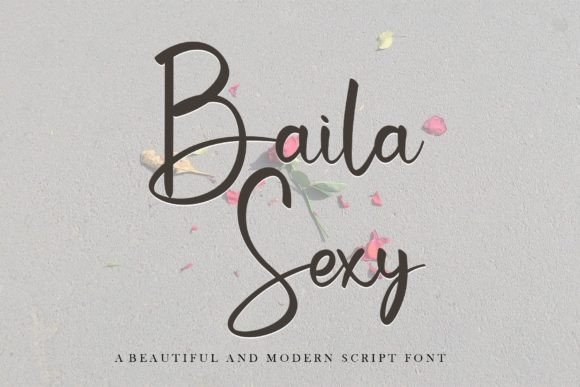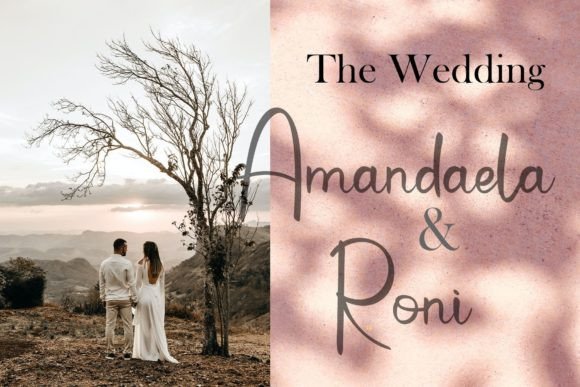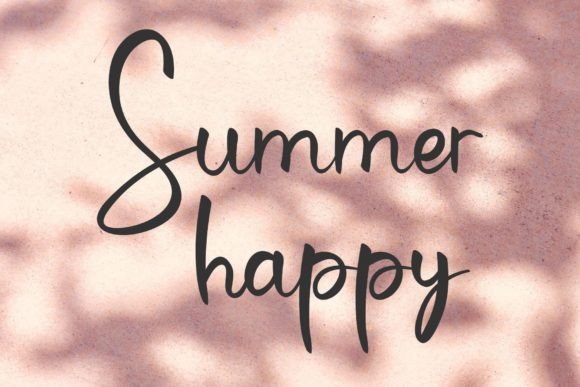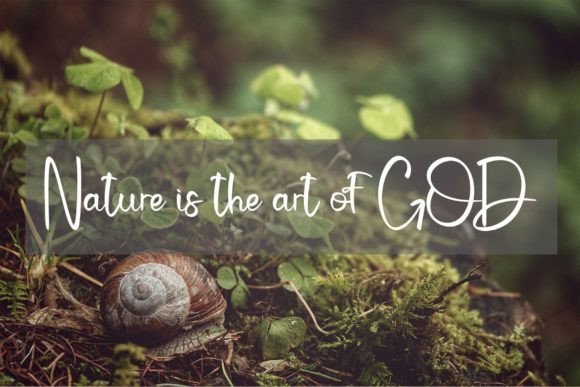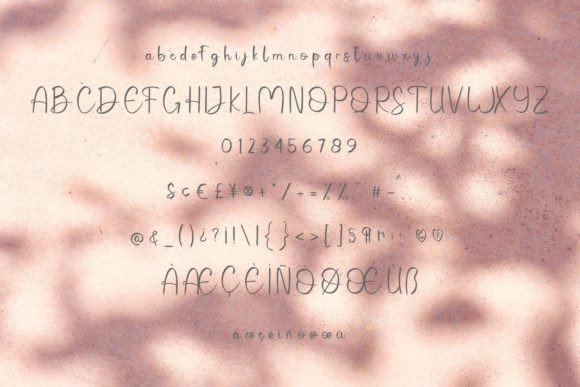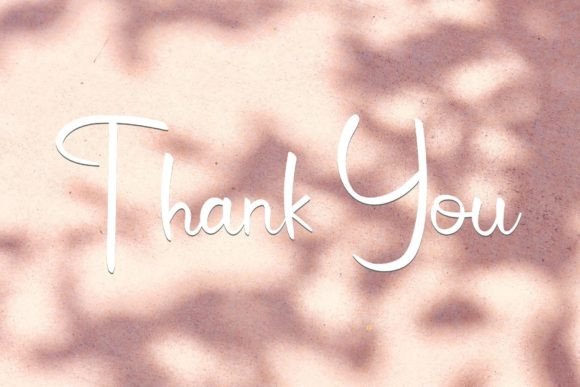
Baila Sexy Font
About Baila Sexy Font
“Baila Sexy” is a font that combines neatness and beauty with an elegant touch, making it an ideal choice for a wide range of creative projects. Its handwritten style adds a personal and authentic feel to designs, while its distinct and timeless charm sets it apart from ordinary fonts. Whether you’re working on invitations, posters, social media graphics, branding materials, or any other project, “Baila Sexy” is designed to enhance your creativity and make your designs truly spectacular.
With its clean and beautiful appearance, “Baila Sexy” invites you to explore the art of typography and design. Its elegance shines through, making it a versatile option for various contexts. Imagine using “Baila Sexy” for elegant invitations, where it adds a touch of sophistication and charm. The font’s handwritten aesthetic creates an intimate atmosphere, making your event announcements more memorable and engaging.
In posters and social media graphics, “Baila Sexy” becomes a visual delight, capturing attention with its distinct style. Its neat yet playful vibe makes it perfect for adding a unique flair to promotional materials, ensuring that your message stands out in a crowd.
For branding and logo design, “Baila Sexy” offers a blend of professionalism and creativity. Its elegant touch adds a sense of refinement to your brand identity, making it memorable and visually appealing. Whether you’re creating a logo for a fashion brand, beauty salon, or any other business, “Baila Sexy” elevates your visual presence with its timeless charm.
In summary, “Baila Sexy” is more than just a font; it’s a tool that empowers your creativity and transforms your favorite projects into works of art. Fall in love with its distinct and elegant style, and let it inspire you to create designs that leave a lasting impression. Embrace the beauty of “Baila Sexy,” and watch as your creative visions come to life in spectacular ways.